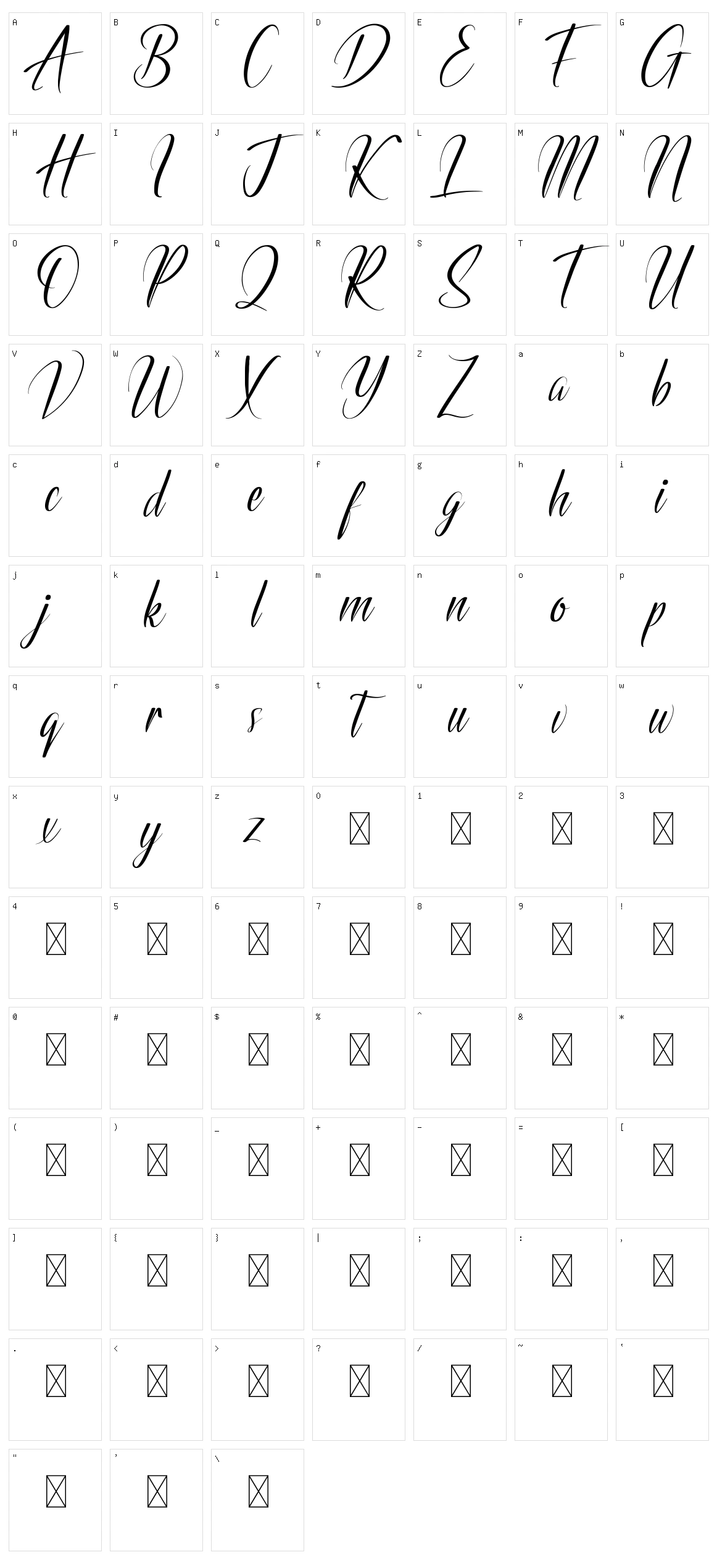
The free font Bristteback is carefully designed by NihStudio, showcasing a thoughtful balance of creativity and usability and falls under the Script font style. When you download the ZIP file, it contains only 25.22 KB of font files, making it lightweight and quick to download. Please review the license details below to understand permitted usage and distribution rights. If license information is not available, we recommend using this font for personal projects only or contacting the author directly for commercial usage permissions.